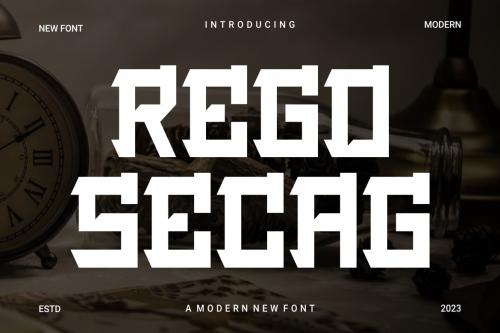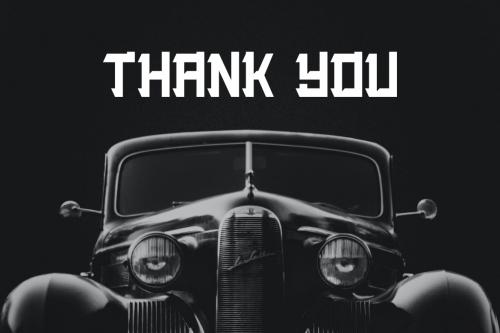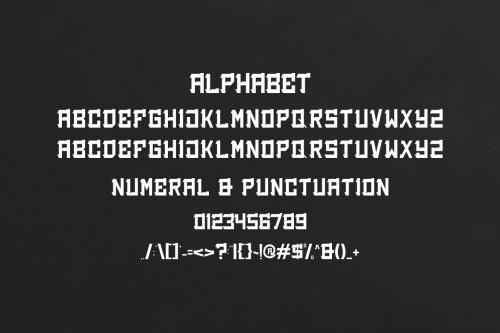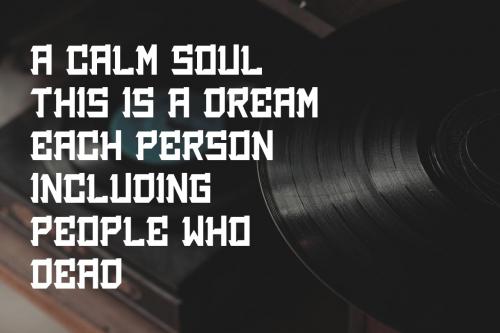
rego secag font
Rego Secag Font
**Introducing Rego Secag Modern Serif Font**. Rego Secag is a modern and simple font, best used as a display for headings, logos, branding, magazines, product packaging and invitations. Rego Secag come with clean lines and smooth curves give any project an extra touch of class.